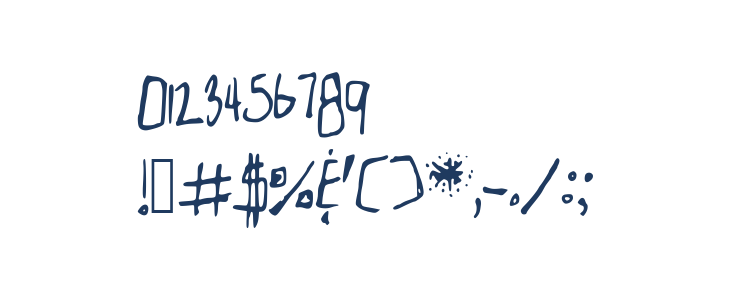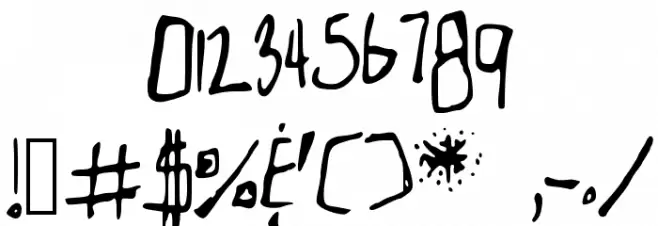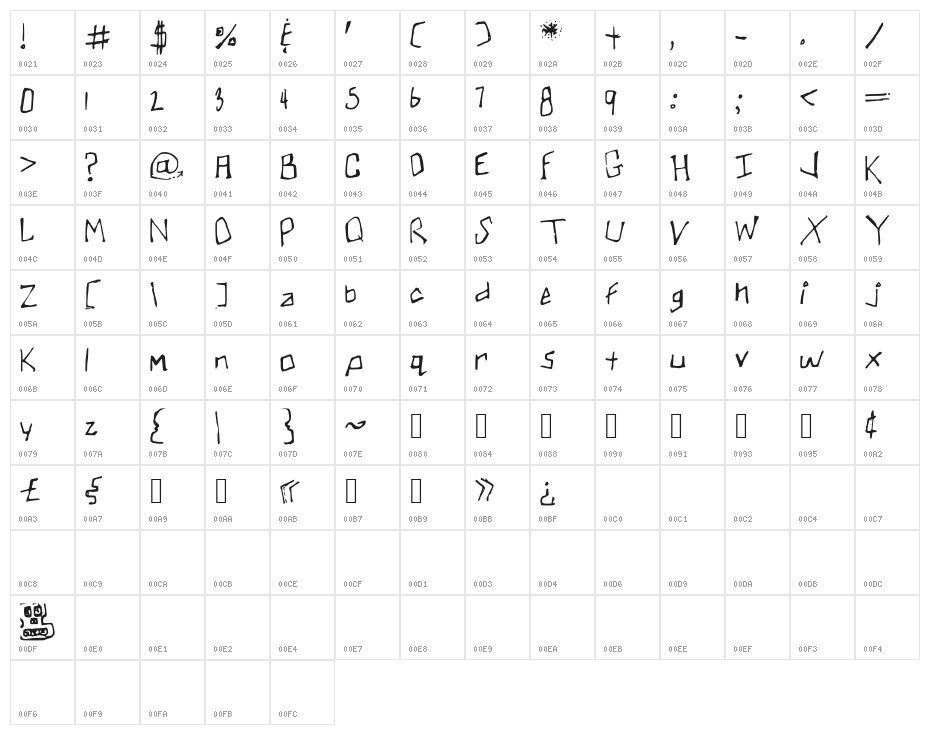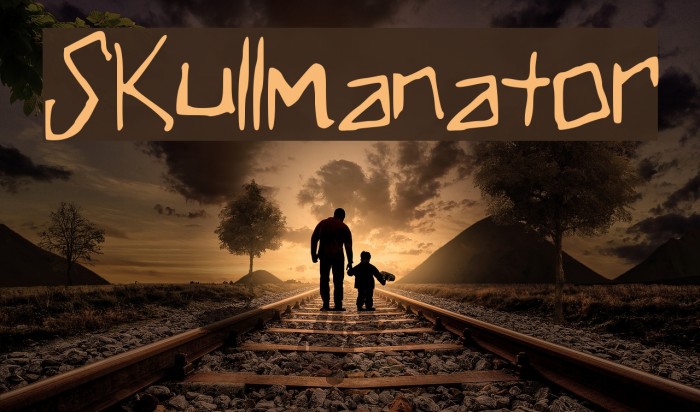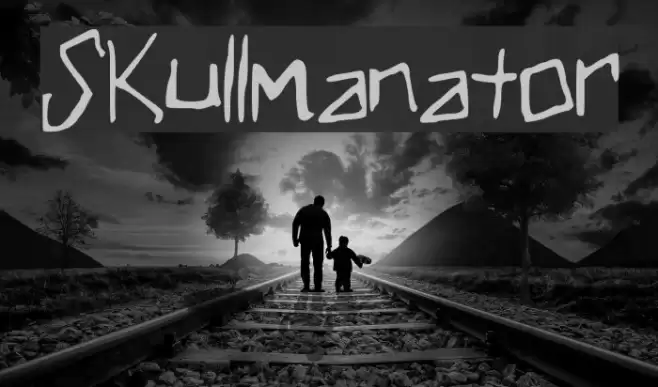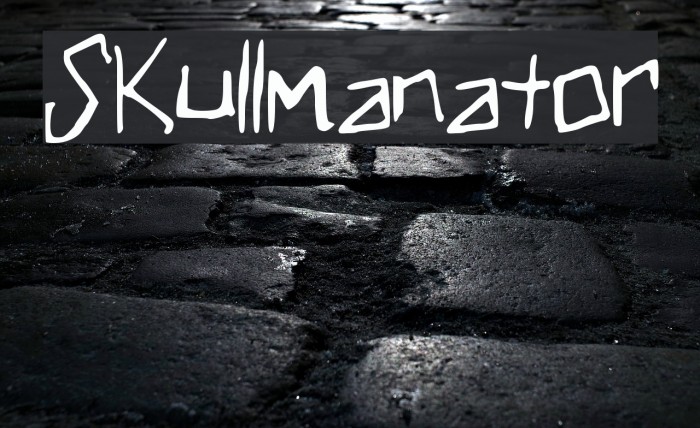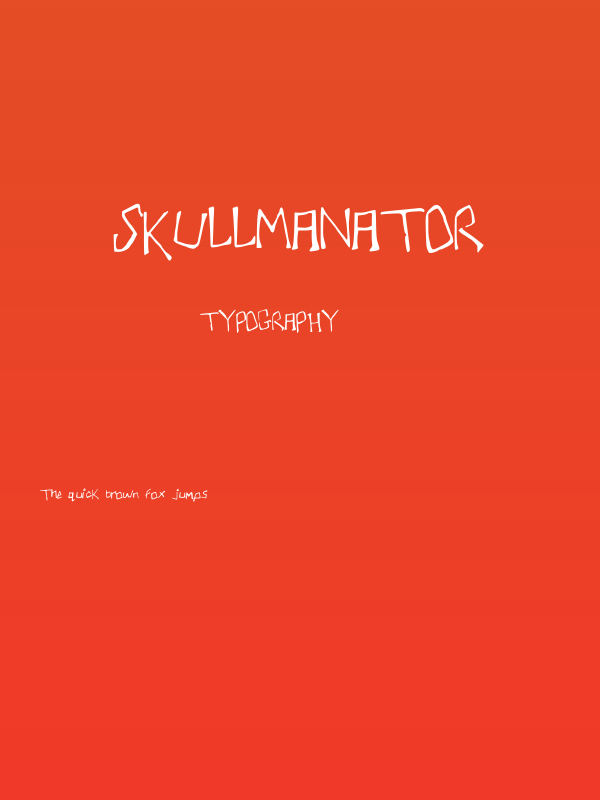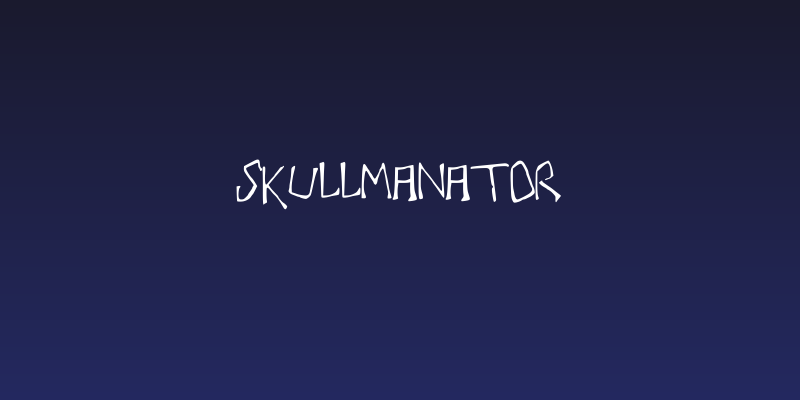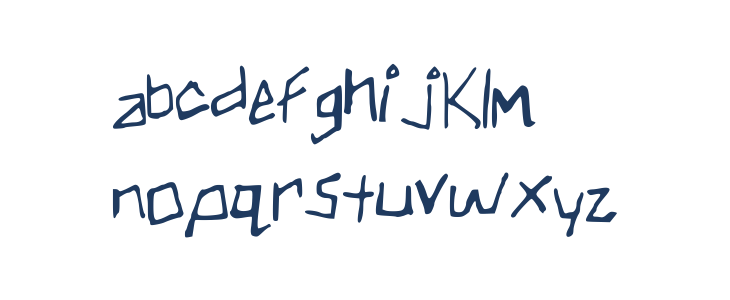
Skullmanator Font
Skullmanator Description
This font exudes a raw, edgy aesthetic with its hand-drawn, irregular strokes and uneven character heights. The letters have a rough, almost jagged appearance, reminiscent of graffiti or street art. The uppercase and lowercase letters maintain a consistent style, with angular lines and a slightly distorted form that adds to its rebellious charm. Numbers and special characters follow the same rugged design, making the font ideal for projects that require a bold, unconventional look. The overall impression is one of spontaneity and artistic flair, perfect for capturing attention.
| Overall Style | Modern, Edgy |
| Proposed Projects | Album covers, streetwear branding, event posters, skateboarding graphics, and edgy social media content. |